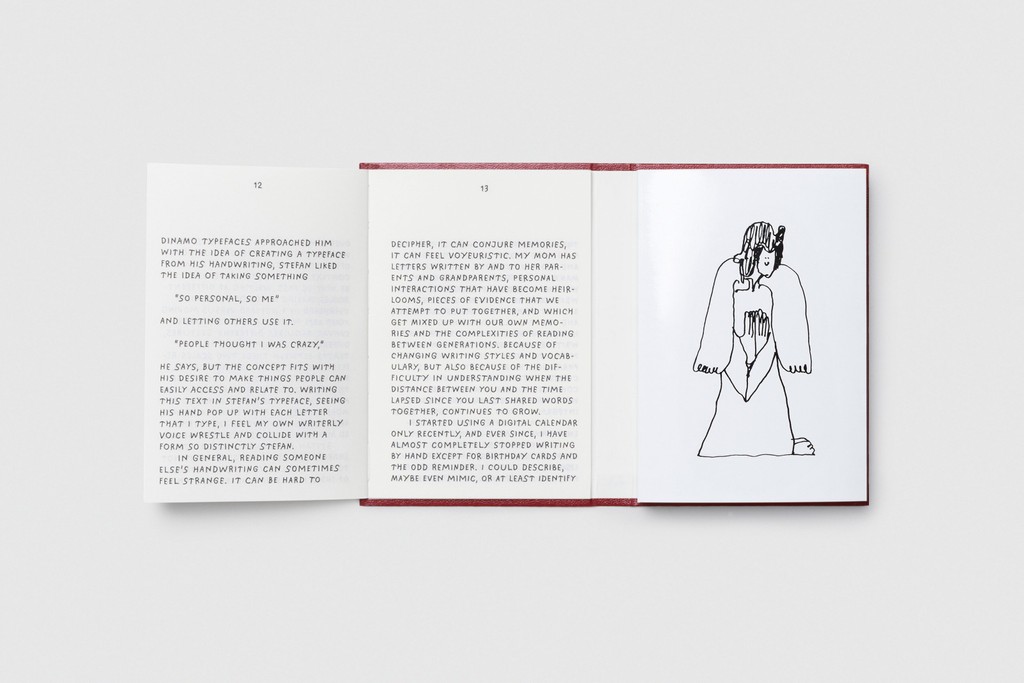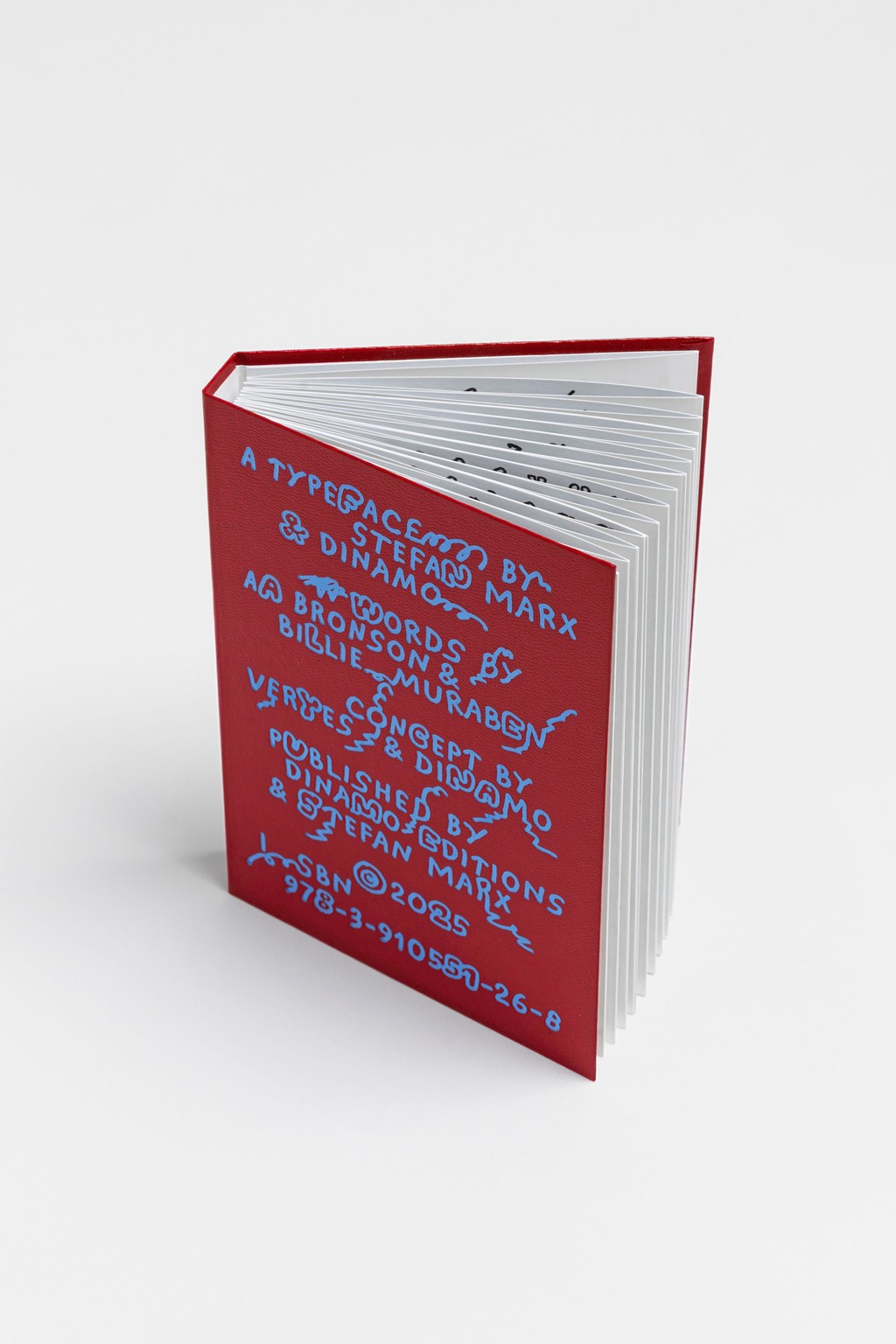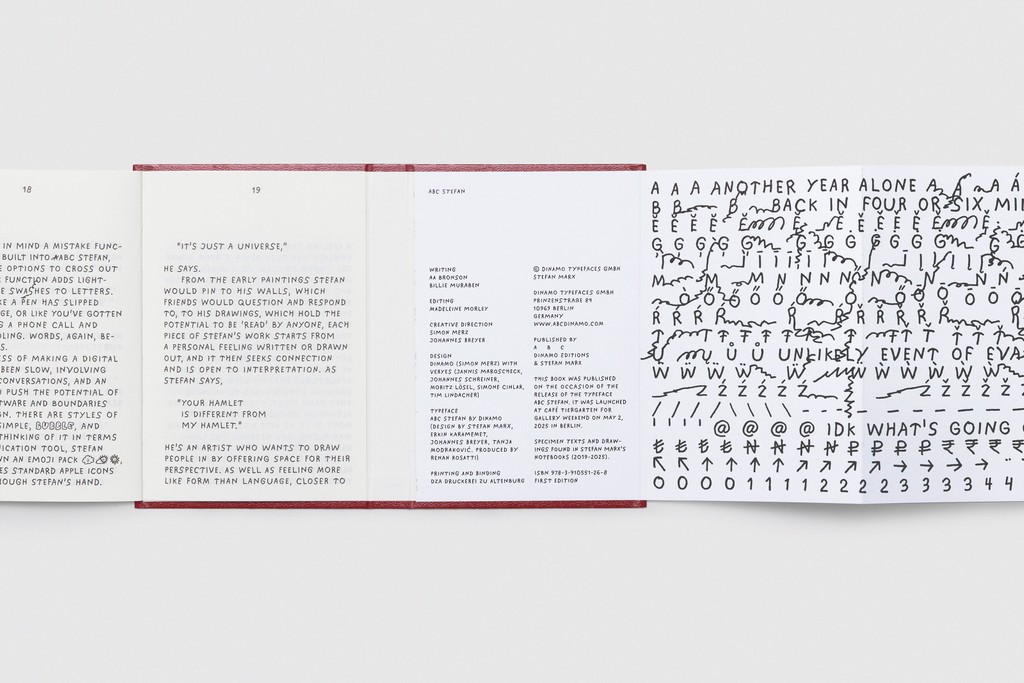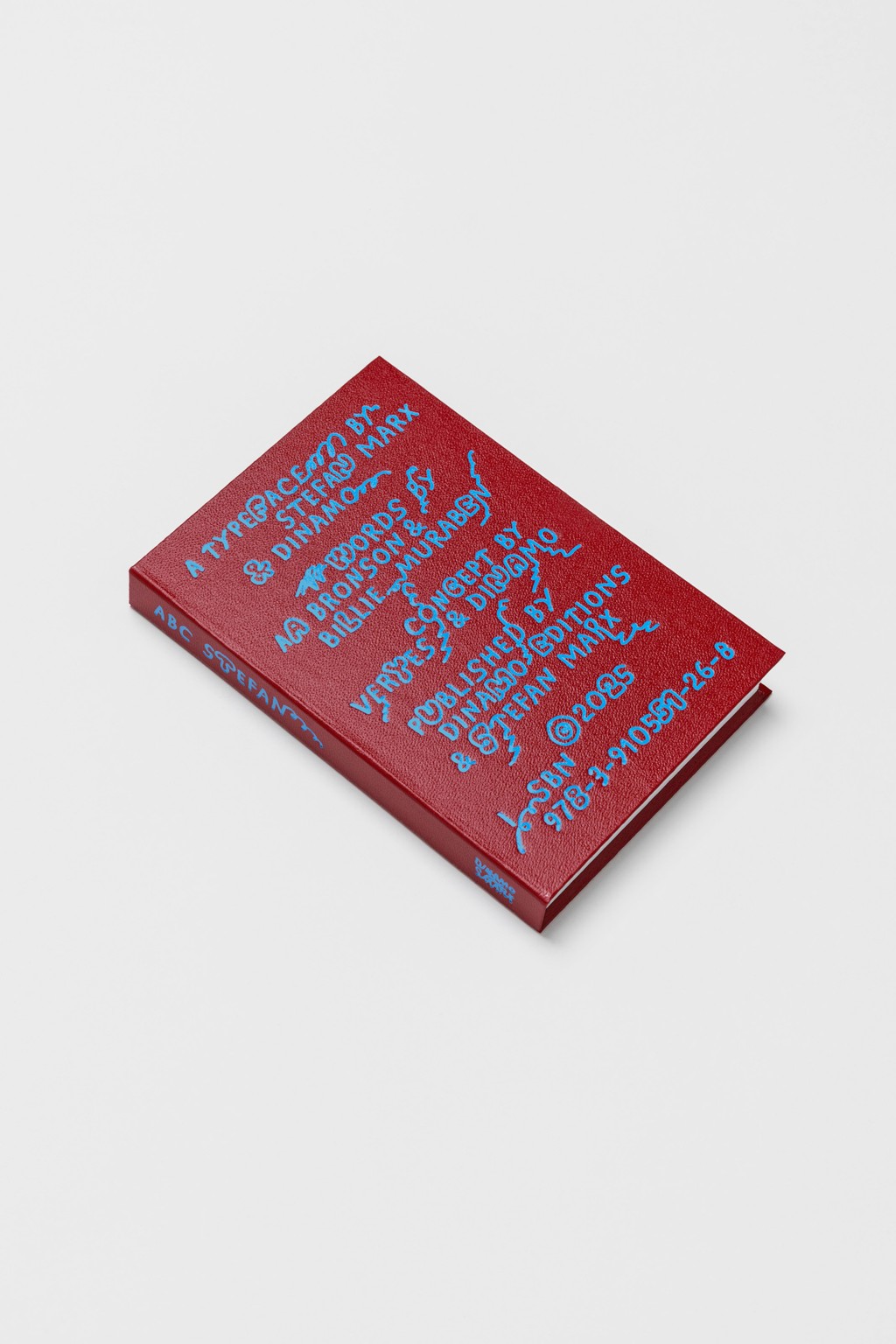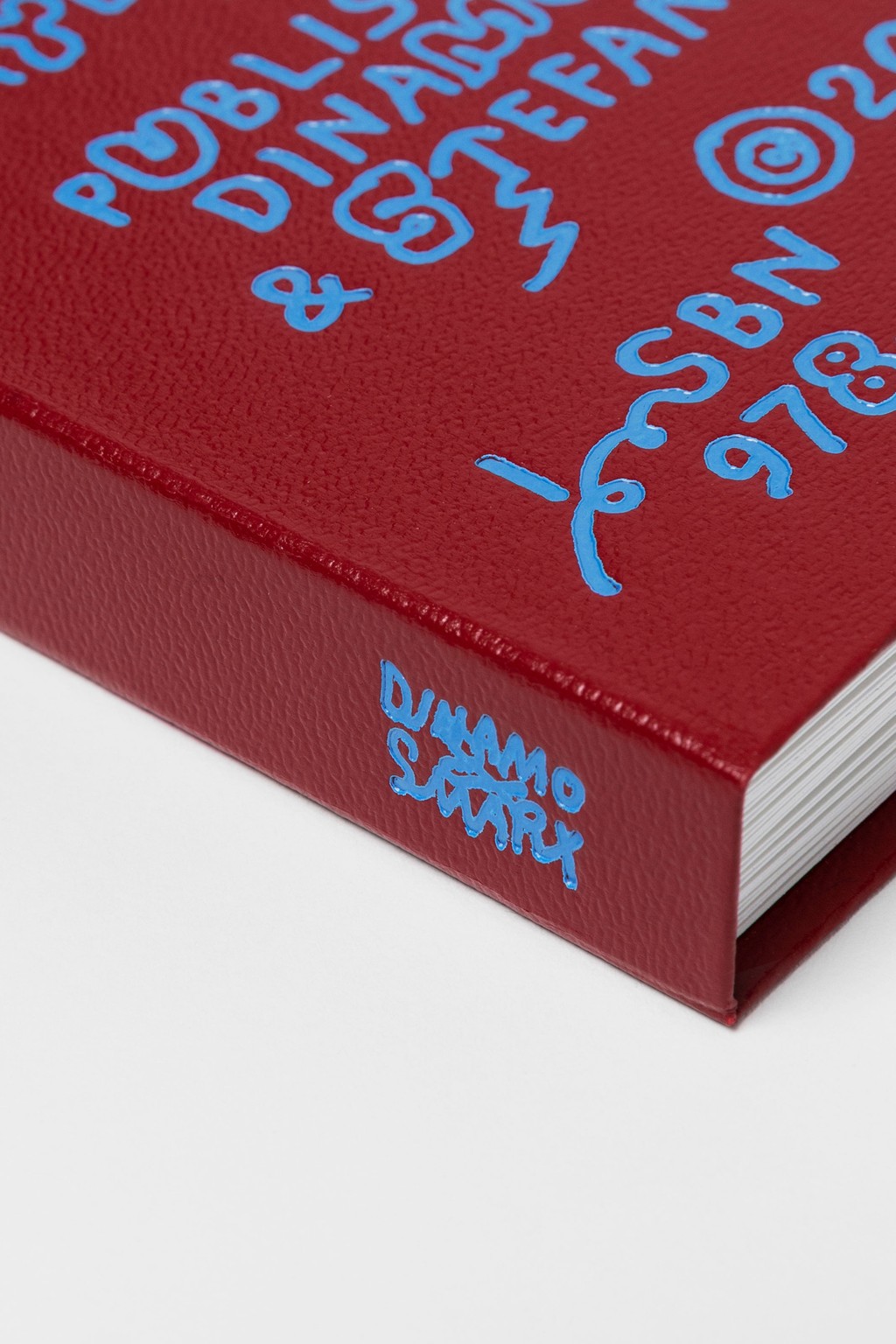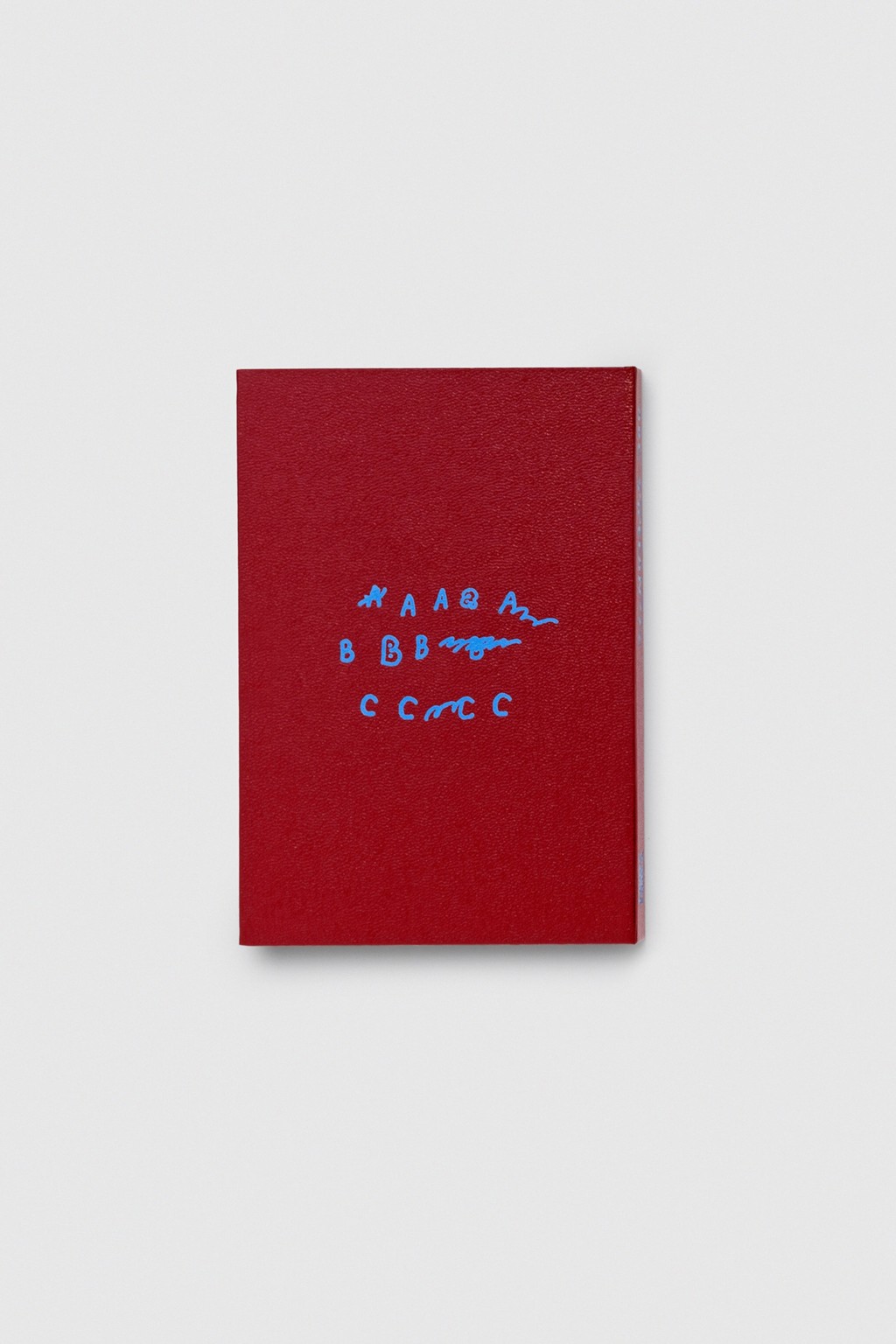
ABC Stefan by Stefan Marx
ABC Stefan is an artist-specimen-accordian-book hybrid designed by Dinamo and veryes, which examines what it means to take something as personal as an artist’s handwriting and make it accessible for others to use. Published to celebrate the release of ABC Stefan — a digitization of the artist Stefan Marx’s personal handwriting — the artist book features 2.5m of glyphs, Stefan Marx's A-Z of drawings, an essay by design writer and curator Billie Muraben, and a poem-artwork by the grandfather of zine-making, AA Bronson.
Drawings and handwriting: Stefan Marx
Writing: Billie Muraben, AA Bronson
Design: Simon Merz, veryes
Editing: Madeleine Morley
Creative Direction: Johannes Breyer, Simon Merz
Typeface: ABC Stefan by Dinamo (Stefan Marx, Erkin Karamemet, Johannes Breyer, Tanja Modrakovic)
Printing and binding: DZA Druckerei zu Altenburg
Specimen texts and drawings found in Stefan Marx's notebooks (2019-2025)
Published by Dinamo Editions & Stefan Marx
First Edition